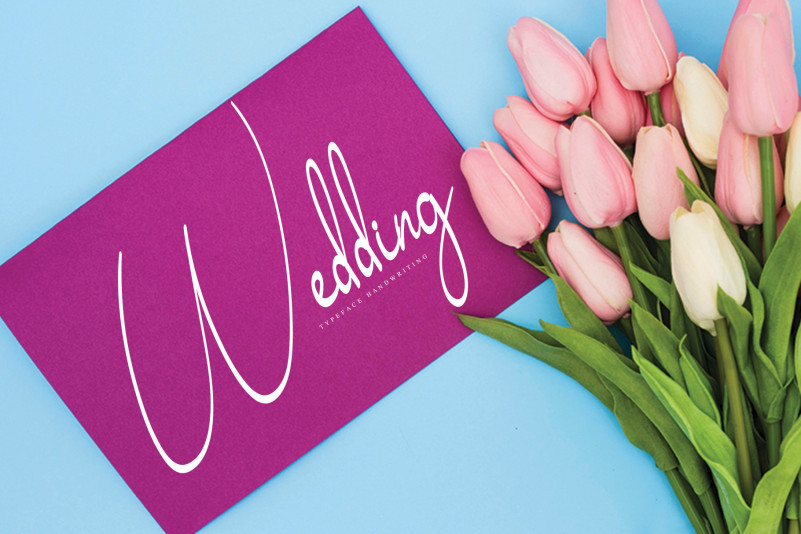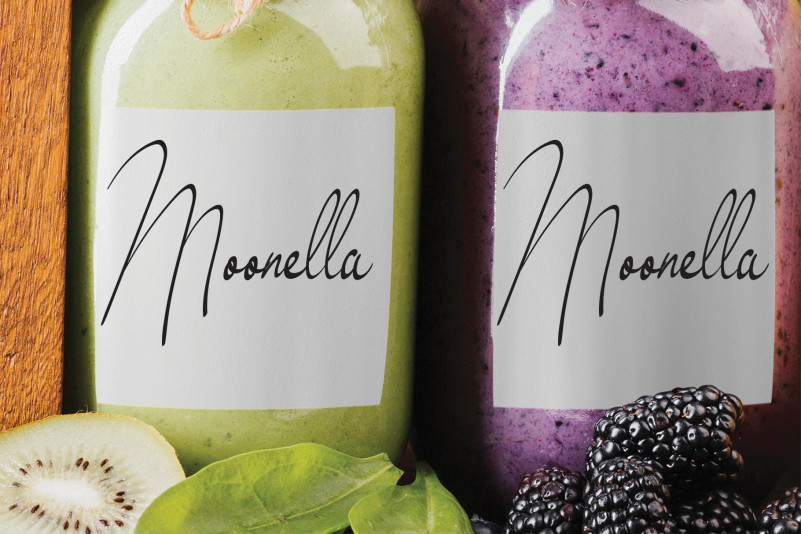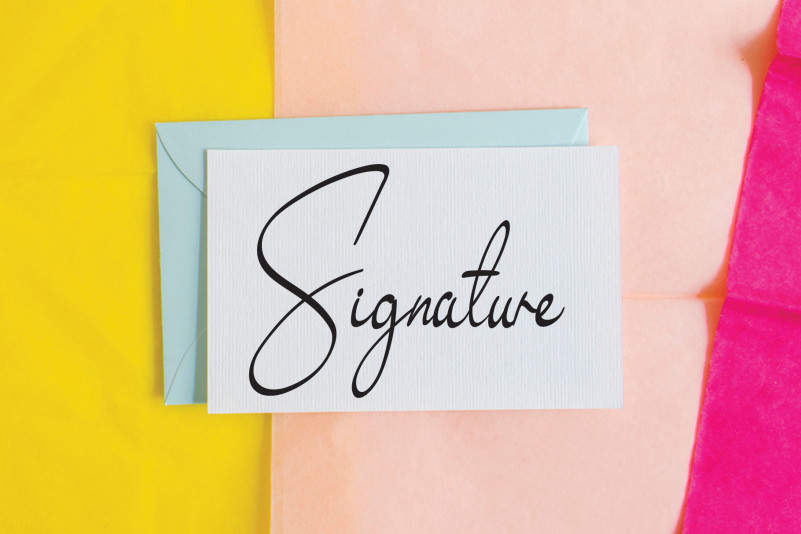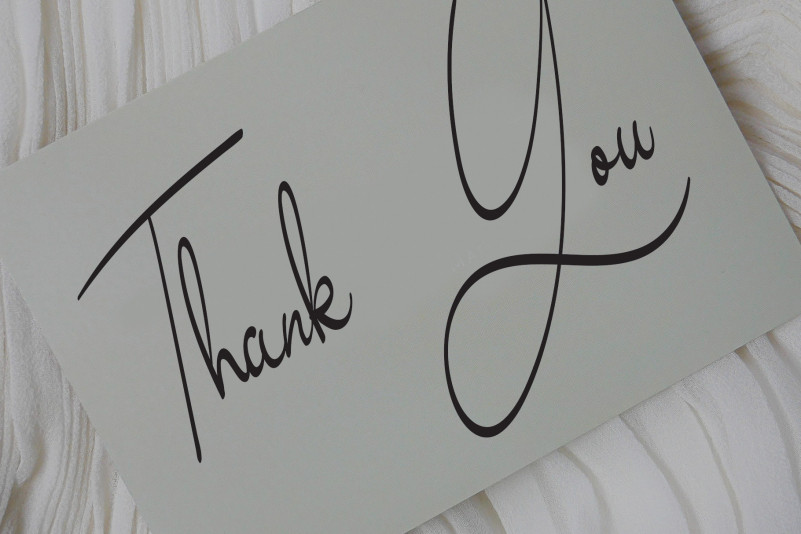
Paper Flower Handwritten Font
Paper Flower Handwritten Font is an elegant script font. Classy and stylish, this font was masterfully designed to become a true favorite!